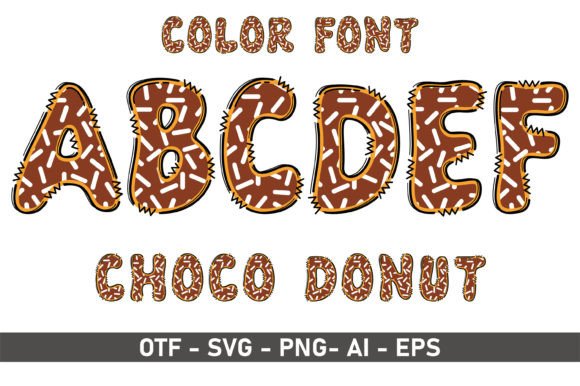
Introducing the Choco Donut Font: A Playful and Artistic Addition to Your Designs
Are you a designer or crafter looking for a font that can add a touch of playfulness and whimsy to your projects? Look no further than the Choco Donut Font! This delightful font is perfect for designs that aim to convey a sense of fun and creativity, such as children’s books, posters, invitations, greeting cards, and more.
The Perfect Font for Children’s Books and Kids’ Designs
Children’s books often require fonts that are not only visually appealing but also easy to read. The Choco Donut Font fits the bill perfectly, with its whimsical and colorful design that’s sure to engage young audiences. The font’s playful feel makes it an excellent choice for kids’ party invitations, birthday cards, and other designs that require a touch of fun and excitement.
- Experiment with different font sizes and styles to add visual interest to your design.
- Pair the Choco Donut Font with other playful fonts to create a unique and eye-catching design.
Here are a few tips for designers and crafters who want to get the most out of the Choco Donut Font:
- Use the Choco Donut Font to add a touch of whimsy to your designs, such as in illustrations, graphics, and text.
- Experiment with different colors and textures to give your design a unique look.
- Consider pairing the Choco Donut Font with other fonts to create a contrasting effect.
- Don’t be afraid to get creative and try new things – the Choco Donut Font is perfect for experimenting with different design styles.
The Choco Donut Font is a playful and artistic addition to any design. With its whimsical and colorful design, it’s perfect for children’s books, posters, invitations, greeting cards, and more. Whether you’re a designer or crafter, this font is sure to bring a touch of fun and creativity to your projects. So why wait? Download the Choco Donut Font today and start creating!